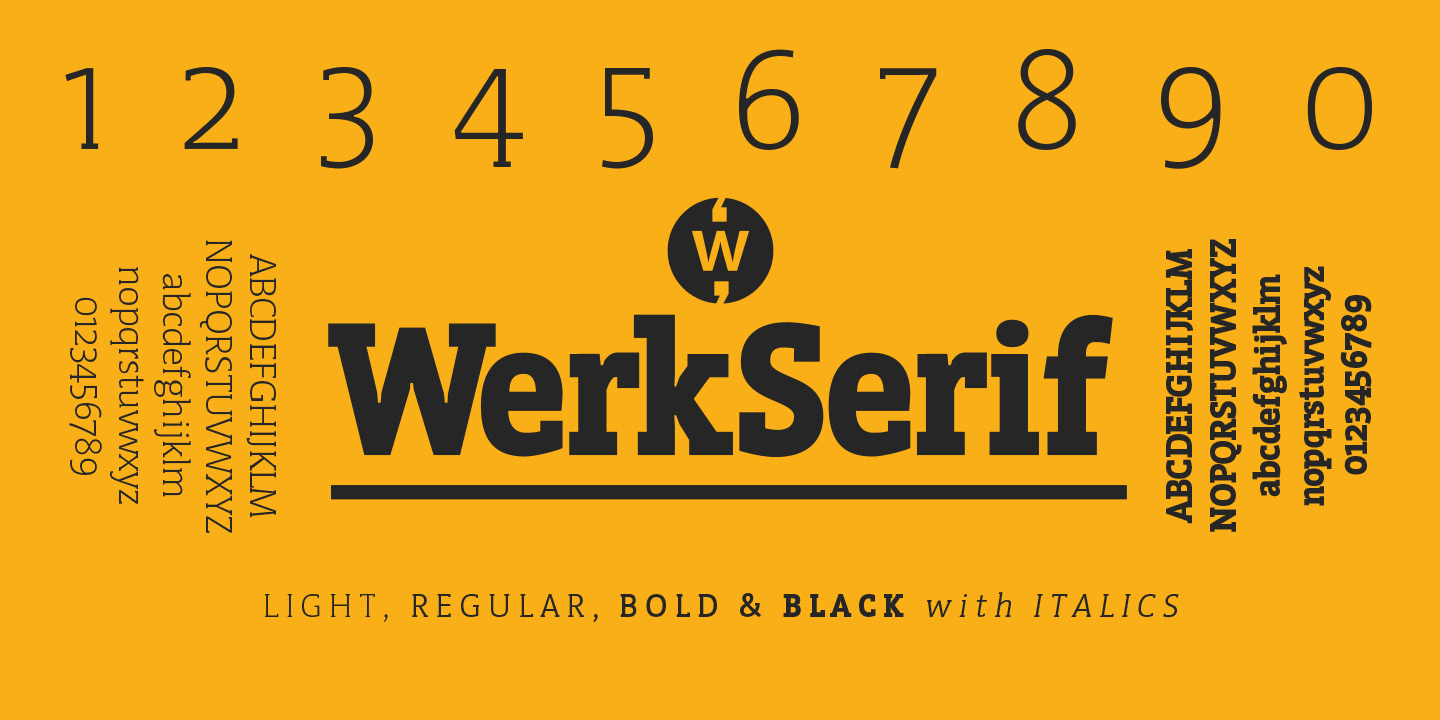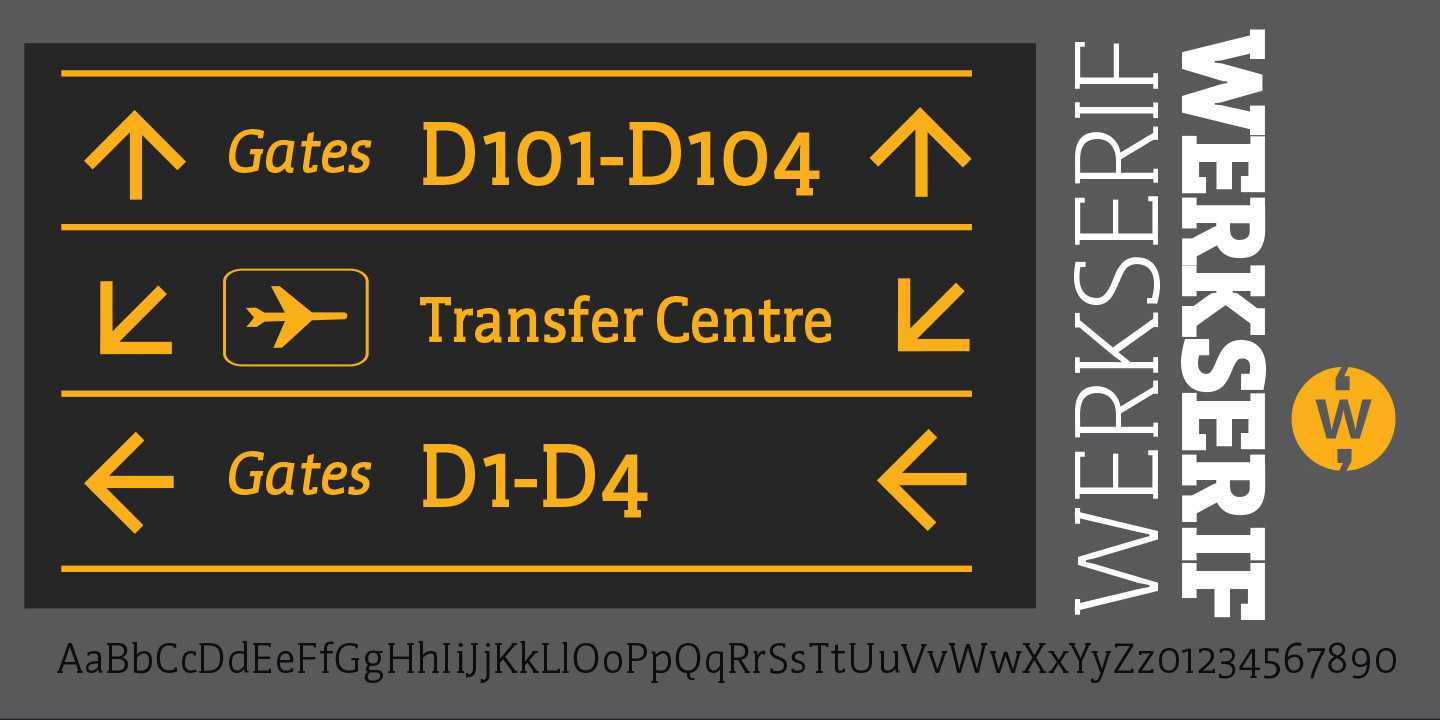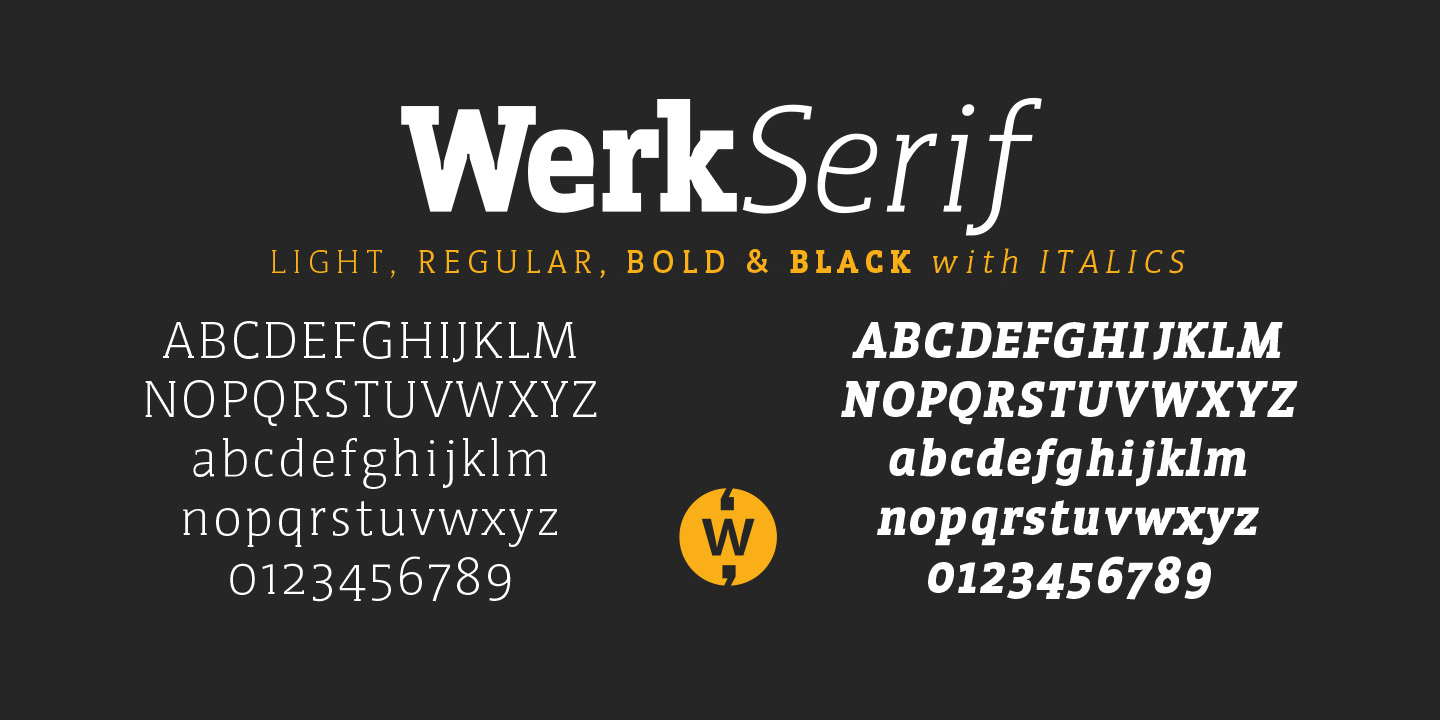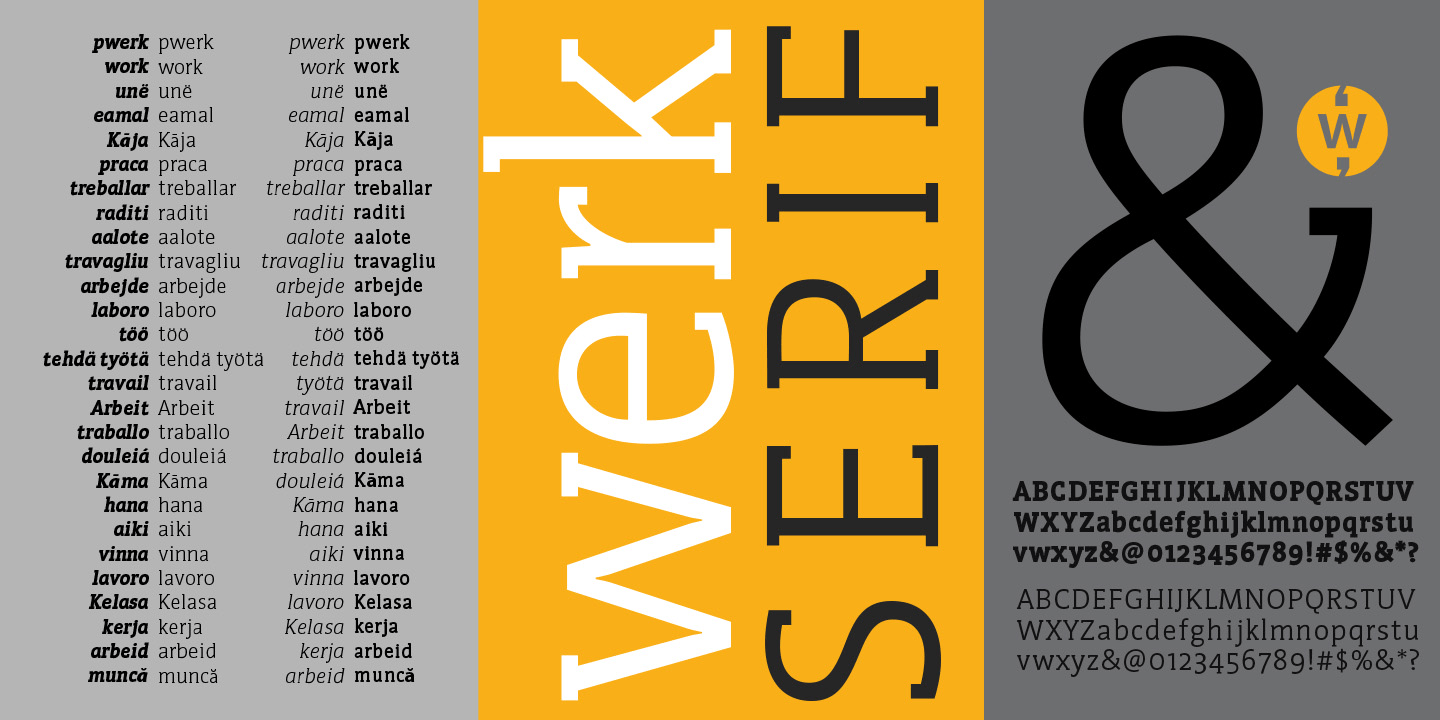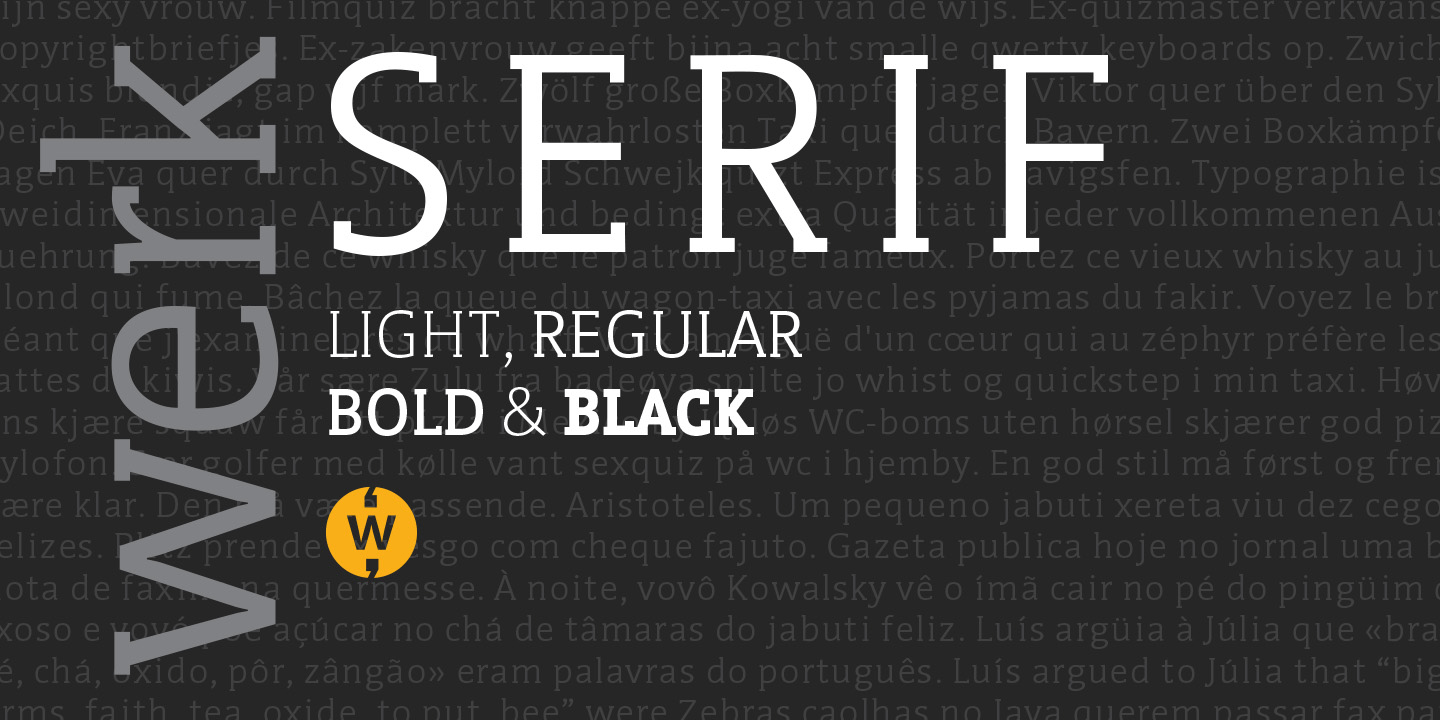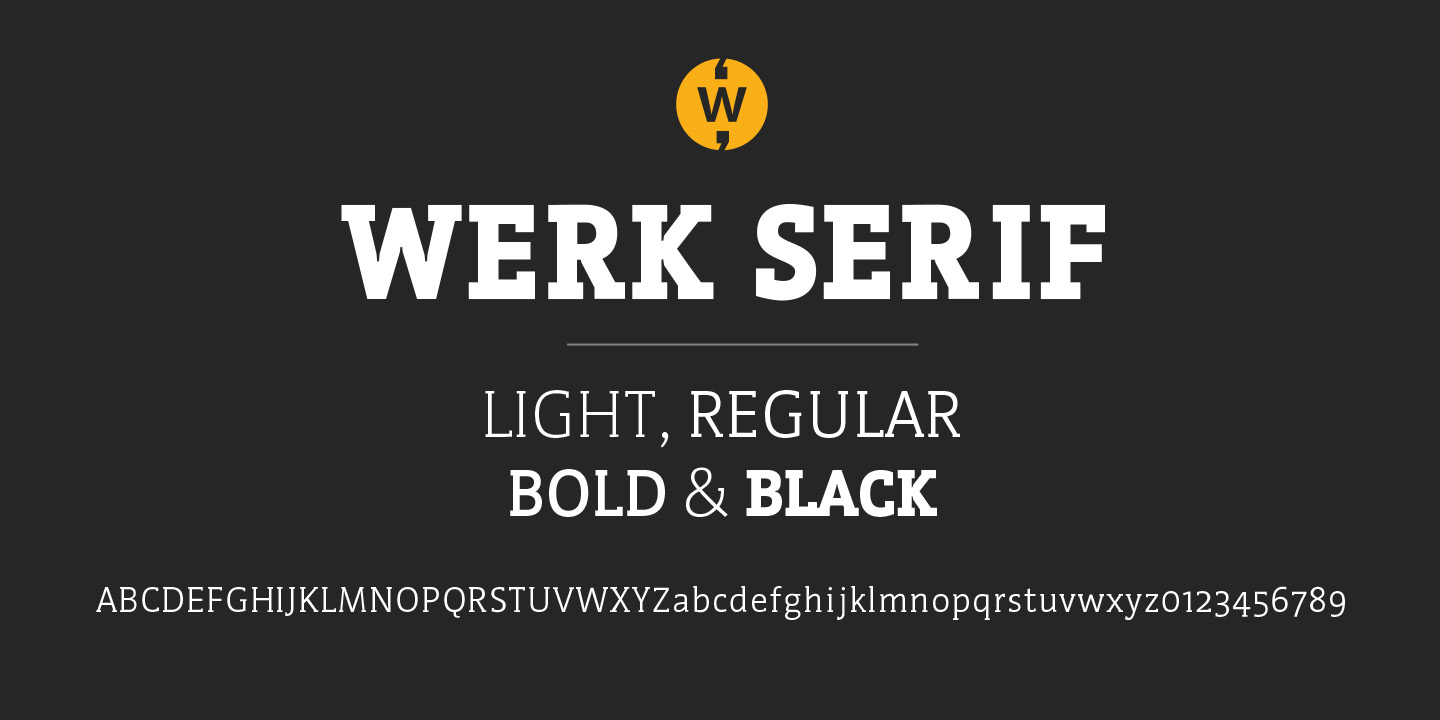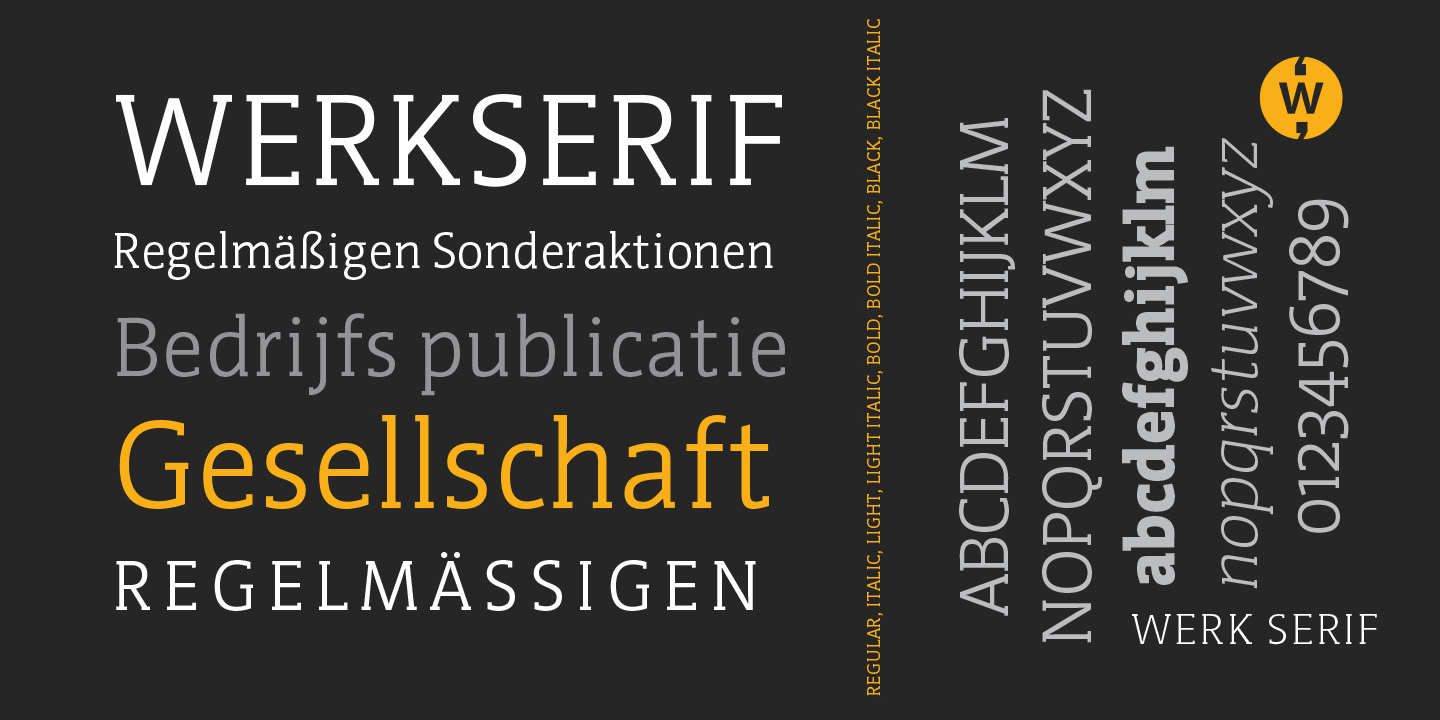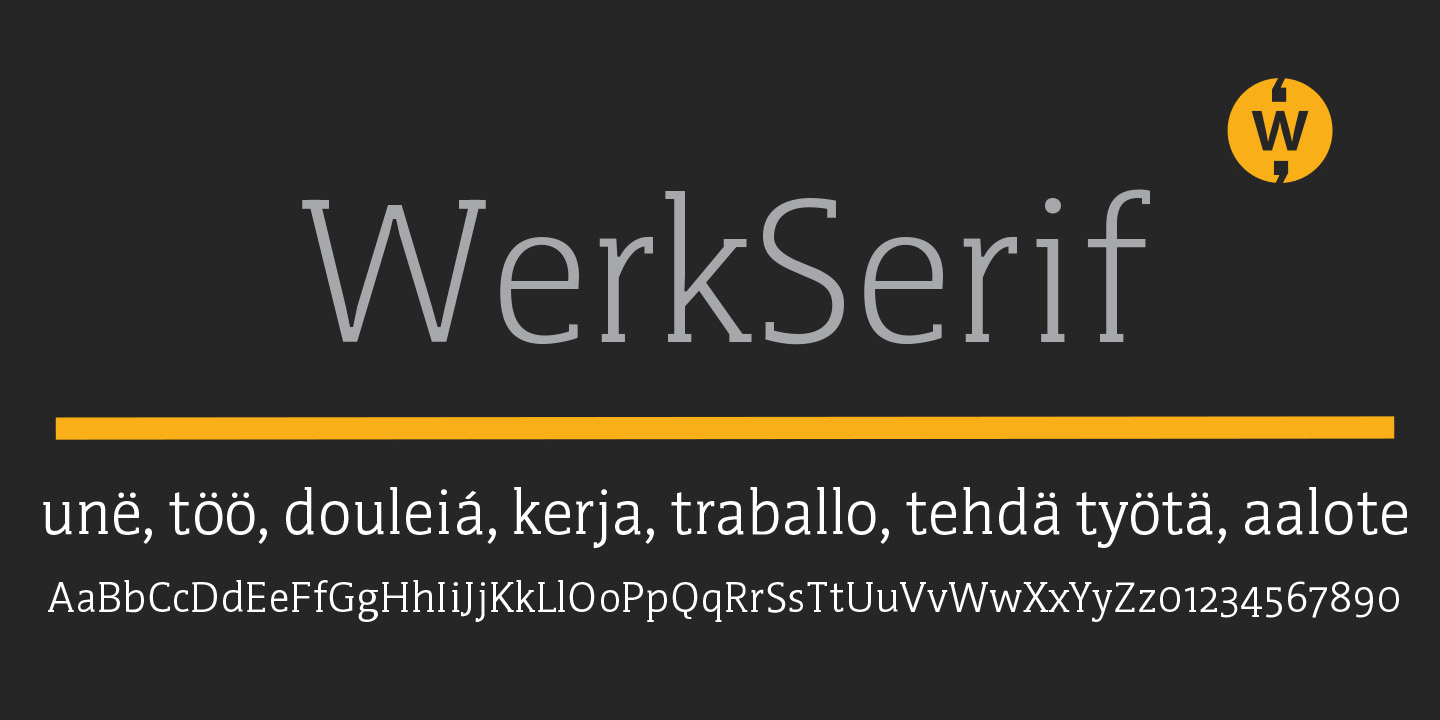
Werk Serif
We created a serif version of our popular Werk Sans Serif that will greatly enhance the Work family of fonts. Like Werk Sans Serif, Werk Serif is a sturdy, well-tuned font that is a true ?werkhorse? with plenty of character without being overbearing.
Werk Serif is an ideal choice for corporate branding offering a complete typographic solution with the sans and serif range of fonts ? also a prime choice for distinctive and dynamic logotype use. Werk Serif comes in a range of offerings from Light to Regular, to bold and Black with matching Italics.